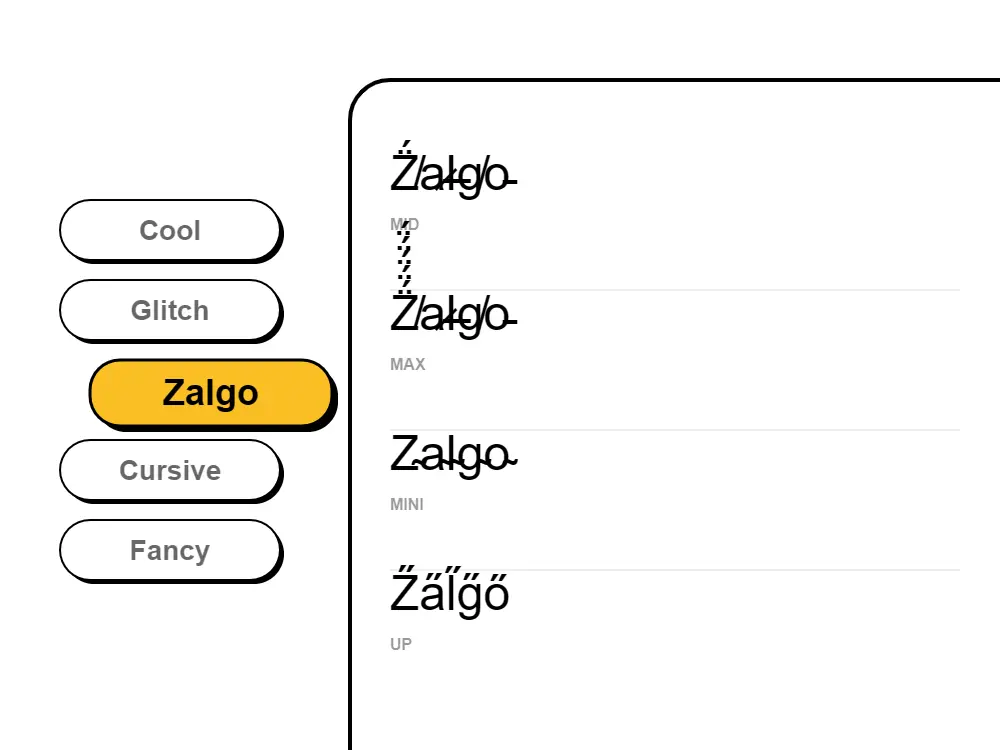
Generate Zalgo text with adjustable glitch intensity. Create creepy cursed fonts, corrupted text & demonic letters. Copy paste Zalgo fonts for horror & memes.
Zalgo Font Styles
Zalgo text is the original corrupted text aesthetic — text that appears to overflow its own boundaries, with cascading diacritical marks that evoke madness, digital horror, and the feeling of something deeply wrong with the fabric of language. Named after an internet horror meme, Zalgo text has become the signature style of creepypasta, horror Discord servers, unsettling usernames, and anyone who wants their words to look like they've been touched by something beyond the normal.
Our Zalgo generator lets you control the intensity of the corruption effect — from subtle distortion to full-intensity character overflow that makes text barely readable. Zalgo characters use stacked Unicode combining diacritics (marks that sit above and below letters), so the effect works anywhere Unicode text is supported: Discord usernames, Reddit comments, Twitter bios, Instagram captions, and more. Adjust the intensity, type your text, copy, and unleash it anywhere.
Generate Zalgo text with adjustable glitch intensity. Our Zalgo text generator creates creepy cursed fonts, corrupted text, and demonic letters. Copy paste Zalgo fonts for horror content, memes, and creepypasta. Get cursed text, void text, and glitched fonts with customizable intensity levels. The best free Zalgo generator with scary text effects.